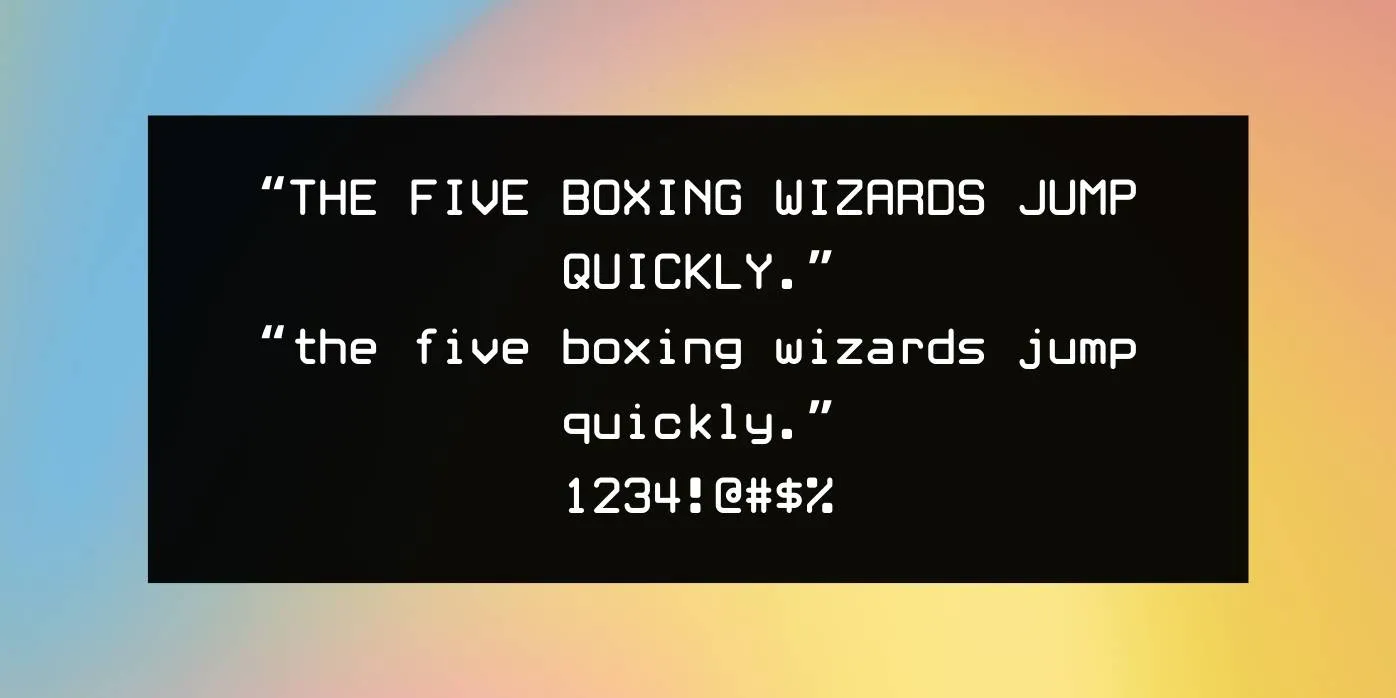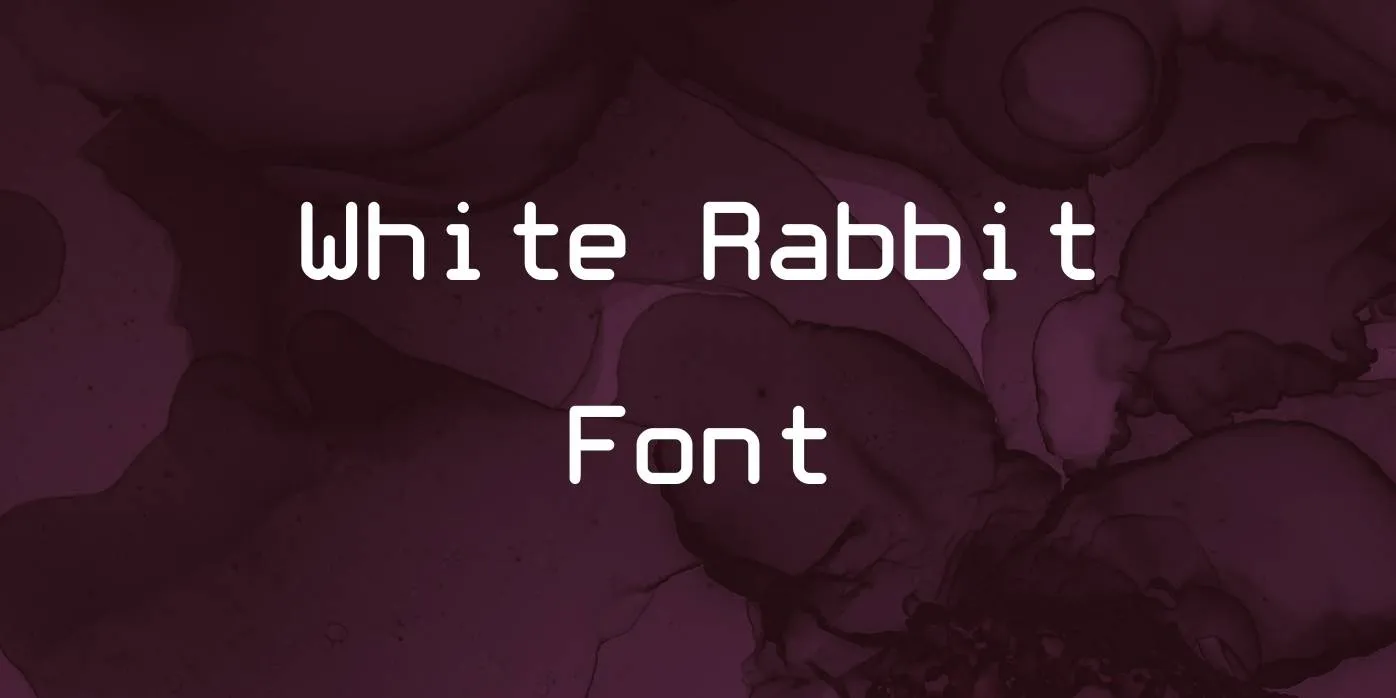
White Rabbit Font
The White Rabbit font was designed by the famous Matthew Welch designs this font. He was an American Designer who released this font for the first time in 1999. It is a fixed-width font. All rights are reserved by Mathew Welch.
It consists of 96 glyphs, the number of characters, and 95 units per Em is 2100. Embedding rights for installation are permanent in this font. The weight of the font is semi-light and the width of the font is Medium (normal). Its direction is mixed directional glyphs and the pattern nature is regular in this font.
This font is used in  Early on low-resolution screens. It has very neat and clear features which can be used to make many different and stylish designs. This is used in 25 languages like Swati/Swazi, Warlpiri, and Xhosa. It can be downloaded on many devices such as Windows/Mac and Linux.